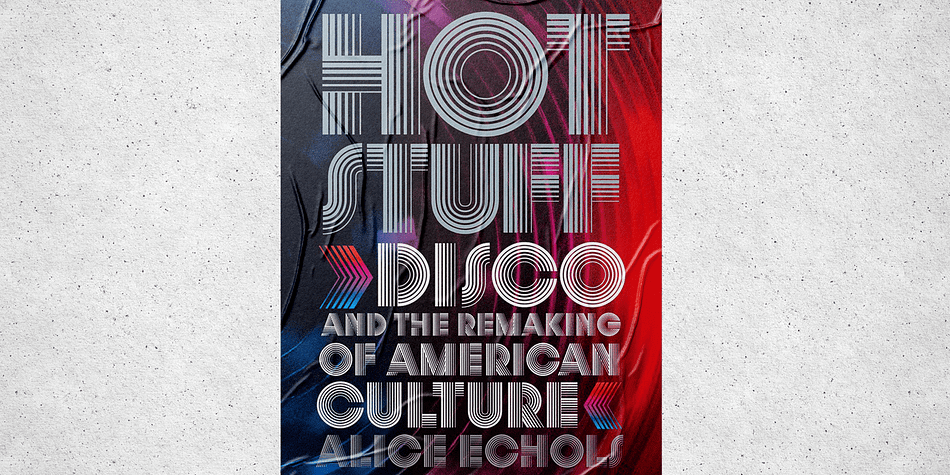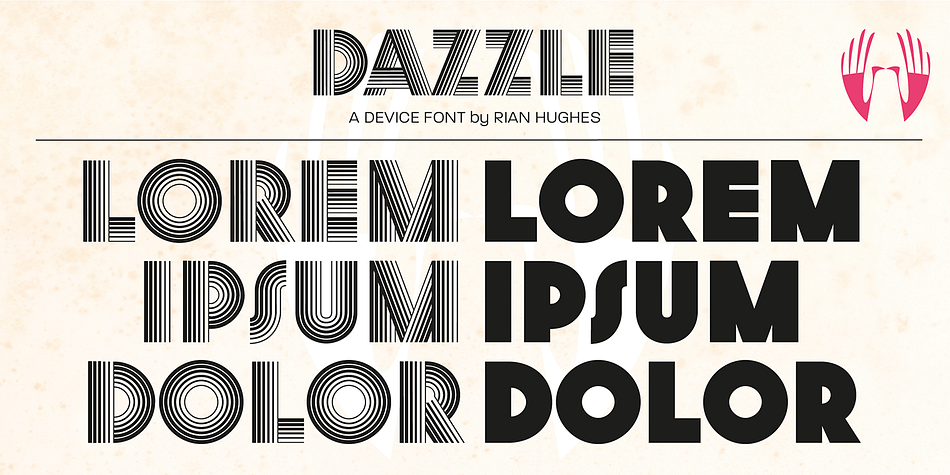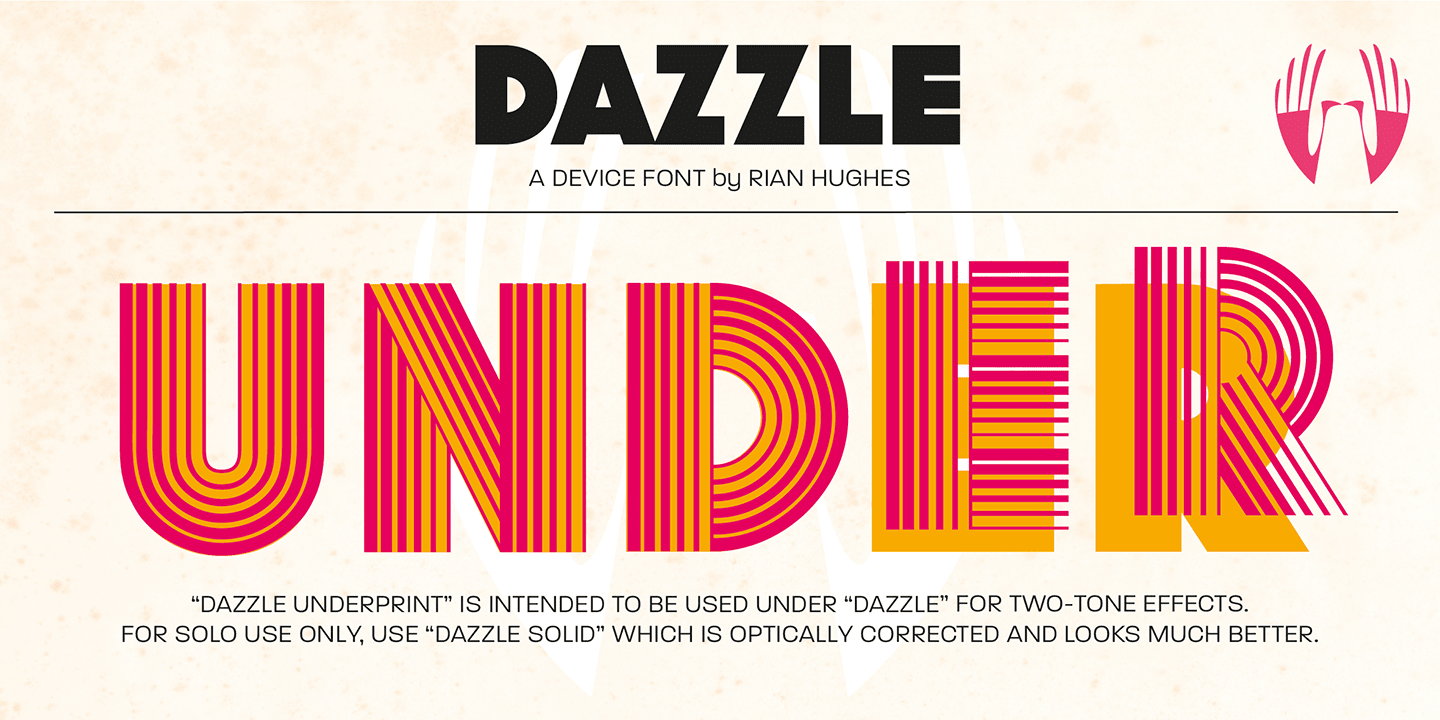
Designed by Rian Hughes, Dazzle is a display sans font family. This typeface has three styles and was published by Device.
Op-art never looked so good.
Taking a cue from the popularity in the 1970s of deco Prismas and their related contemporary interpretations, this geometric font updates the trend. Overlap text in different colours or black and white for eye-teasing moiré combinations. An image above illustrates the use of Dazzle Underprint, a uniform-width version of the font that is placed under Dazzle and used to create two-colour effects simply and easily.
Dazzle Underprint is not intended for solo use, only as an underprint — please see Dazzle Unicase for a range of undecorated weights.